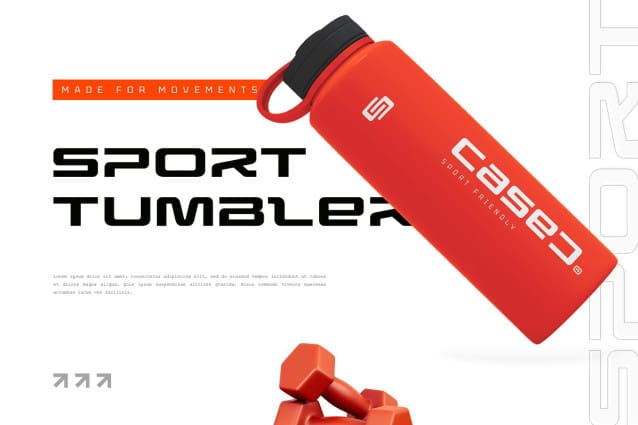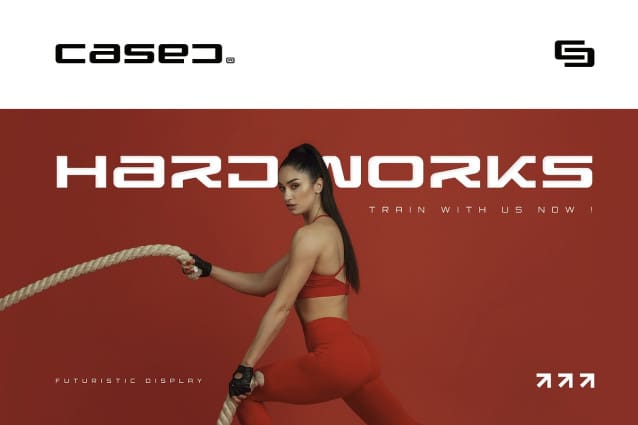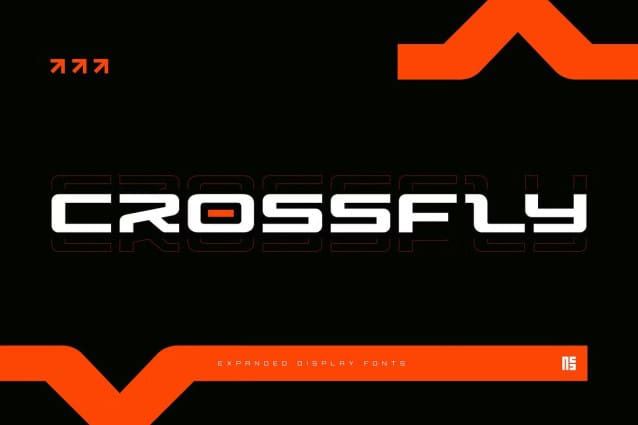
Crossfly Font
Crossfly Font – Modern expanded display font. An exciting typeface that captures the spirit of technology, speed, and movements. Distinctive characteristics make a great choice for gaming/sports logos, branding identity, posters, apps, or any design project that demands a futuristic and energetic.